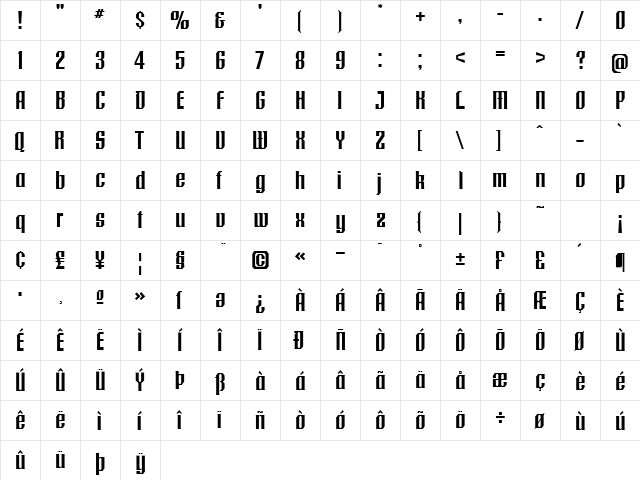
Crucifix R
Design Context for Crucifix Typeface
Crucifix is a composed and adaptable typeface that performs quietly and consistently across a wide range of design contexts.